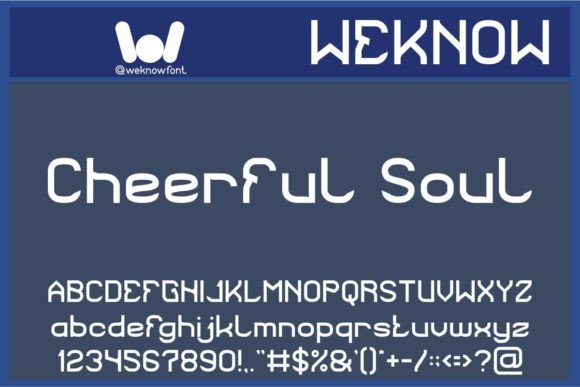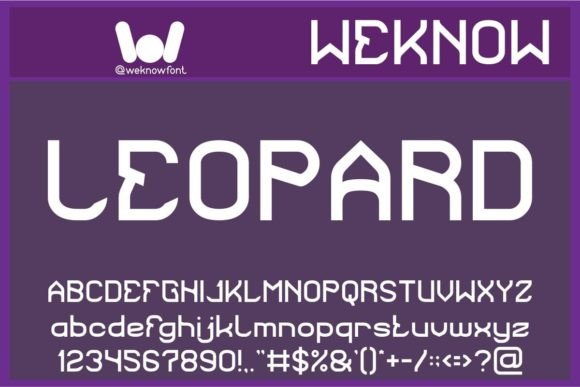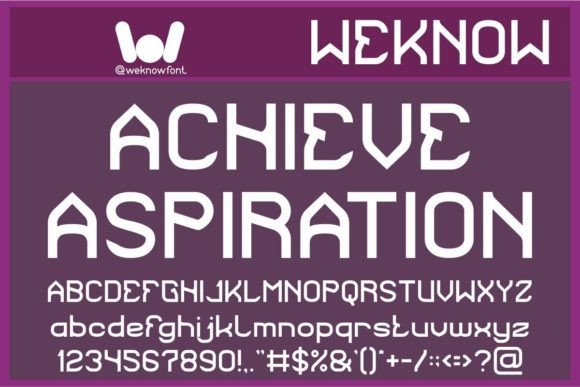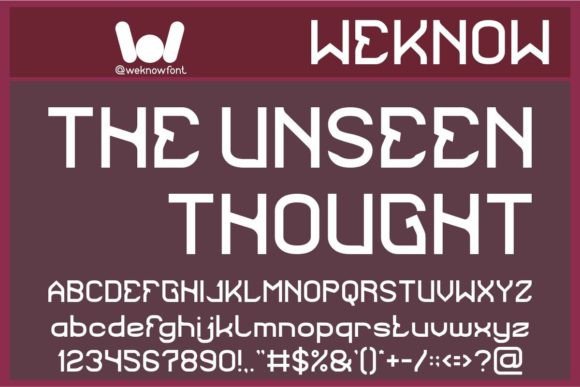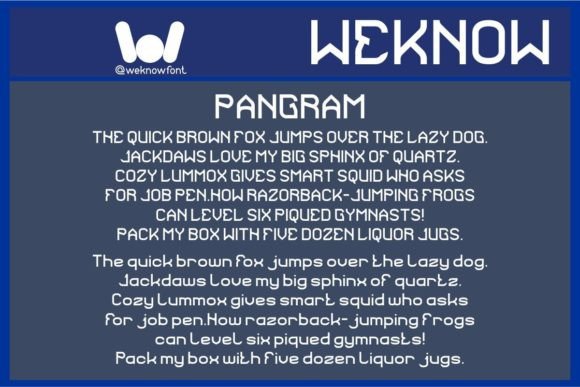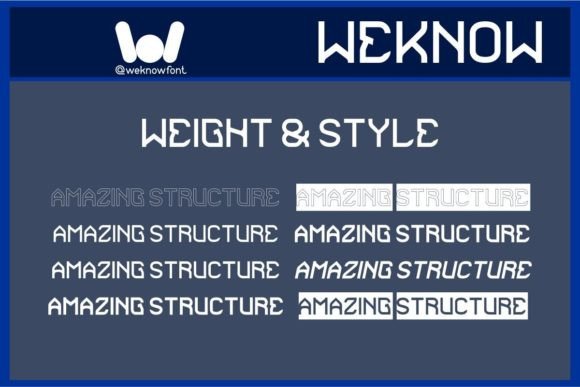
The Amazing Structure Font: A Game-Changer for Your Creative Projects
I’ll never forget the time I was working on a logo design project for a tech startup, and I was struggling to find the perfect font. The client wanted something modern, edgy, and futuristic, but also legible and professional. I spent hours scouring the internet, trying out different fonts, but nothing seemed to fit the bill. That was until I stumbled upon the Amazing Structure font. ✨
It was love at first sight! The Amazing Structure font had the perfect blend of techno-sci-fi vibes and sleek, modern design. I knew immediately that it was the perfect fit for my client’s project. In this article, I’ll share my experience with the Amazing Structure font, including what I love about it, some quirks and limitations, and a step-by-step guide on how to use it in different design platforms.
Honest Review: What I Love and What I Don’t
- ✨ Versatility: The Amazing Structure font is suitable for a wide range of creative projects, from logos and branding to posters, music, and even comics.
- ✅ Legibility: Despite its futuristic design, the font is surprisingly legible, even at small sizes.
- 💻 OpenType Features: The font comes with a range of OpenType features, including glyphs, stylistic alternates, and more.
- 🎨 Customization: The font is highly customizable, allowing you to create unique and personalized designs.
The Not-So-Good Stuff
- 🤔 Limited Serif Options: The Amazing Structure font is primarily a sans-serif font, which may limit its use in certain design projects that require serif fonts.
- ⚠️ Occasional Kerning Issues: Like any font, there may be occasional kerning issues, especially when using the font at very small sizes or in combination with other fonts.
The Designer Inspiration Behind Amazing Structure
The Amazing Structure font was designed by a team of typographers who wanted to create a font that would capture the essence of modern technology and innovation. Inspired by sci-fi movies, video games, and futuristic architecture, the font is designed to evoke a sense of excitement and possibility.
| Font Name | Amazing Structure Font |
| Author | weknow |
| What is the Amazing Structure font? | The Amazing Structure font is a techno-sci-fi display font suitable for a wide range of creative projects. |
| Does the Amazing Structure font come with OpenType features? | Yes, the Amazing Structure font comes with a range of OpenType features, including glyphs, stylistic alternates, and more. |